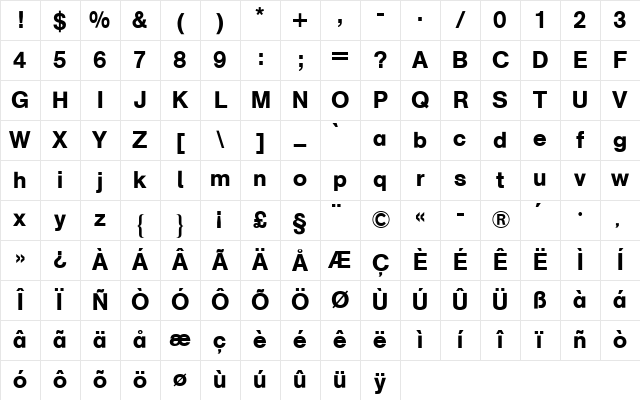
AG Schulbuch Two BQ Medium
Foundry: COPYRIGHT H. BERTHOLD AG Alle Rechte vorbehalten
Design Context for AG Schulbuch Two BQ
AG Schulbuch Two BQ is a composed and adaptable typeface that performs quietly and consistently across a wide range of design contexts.
Who designed the AG Schulbuch Two BQ Medium font?
This font was published by COPYRIGHT H. BERTHOLD AG Alle Rechte vorbehalten. Check the technical specs section for copyright and designer details.